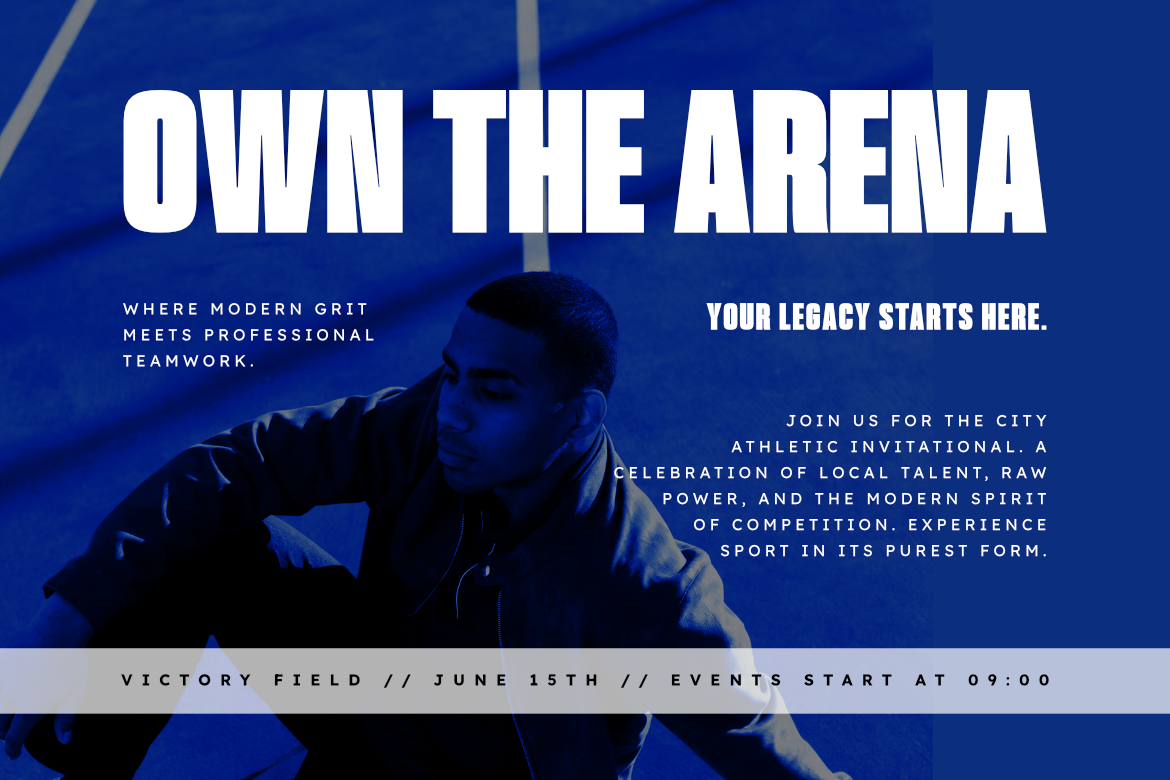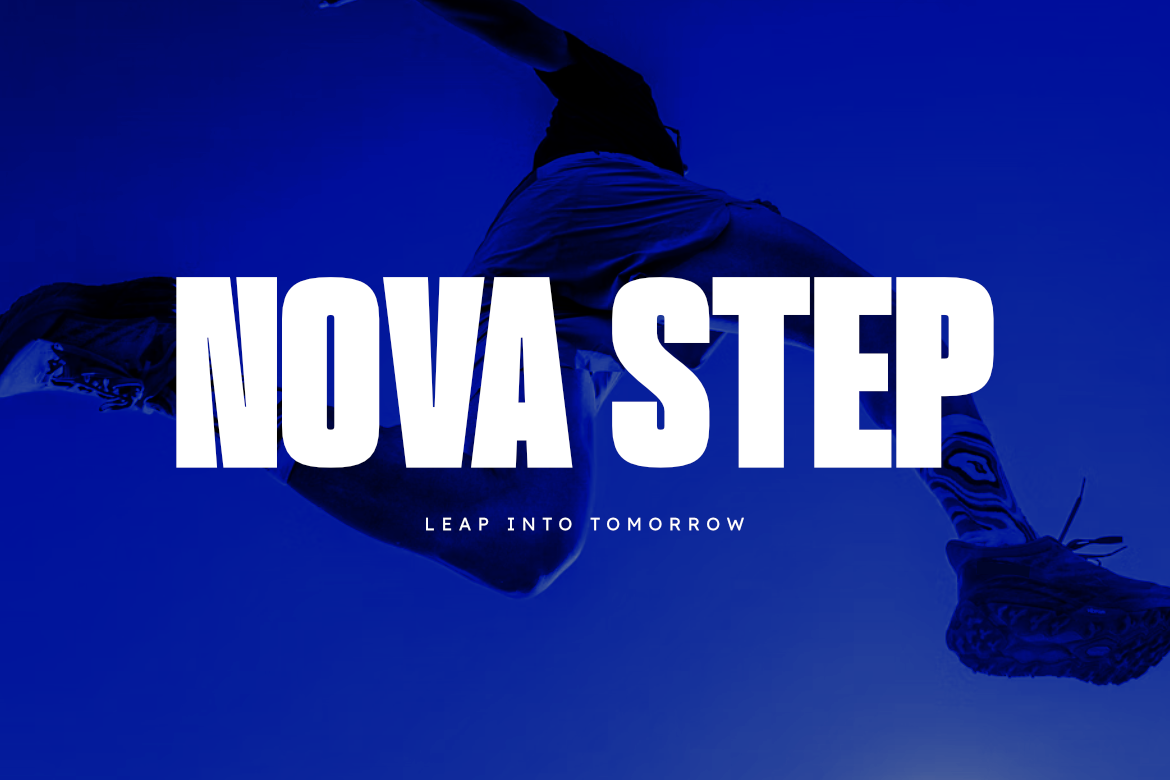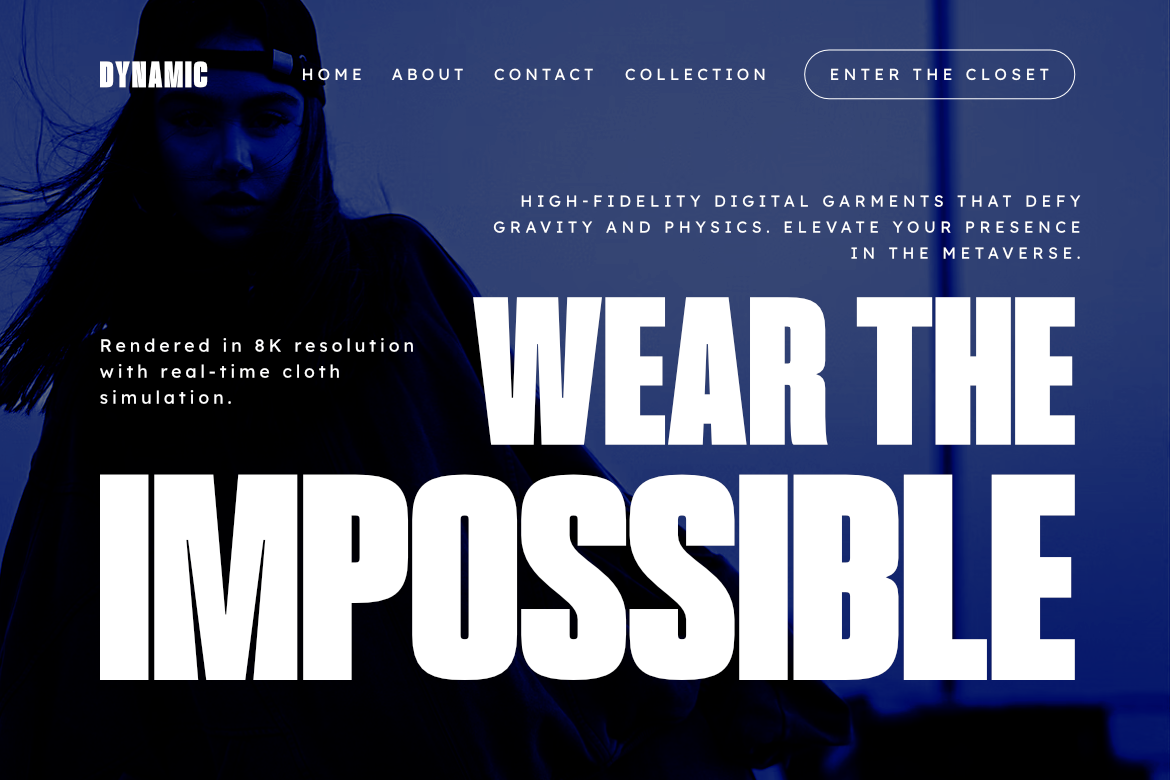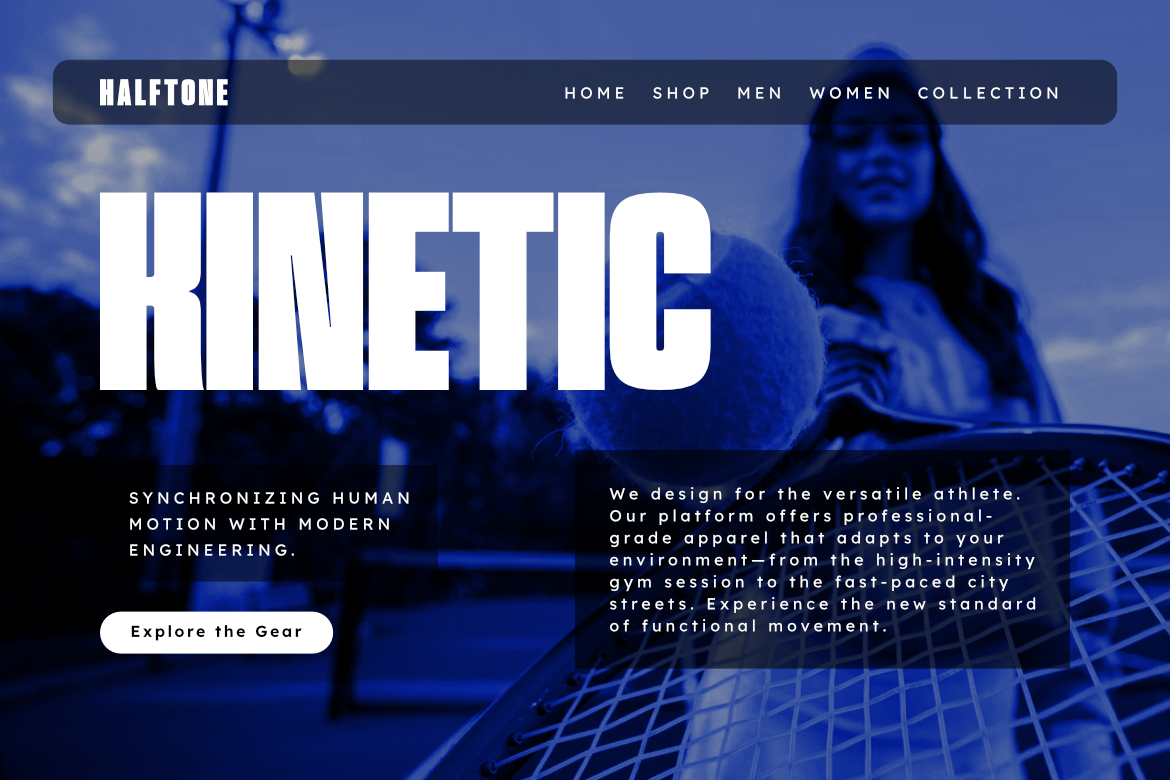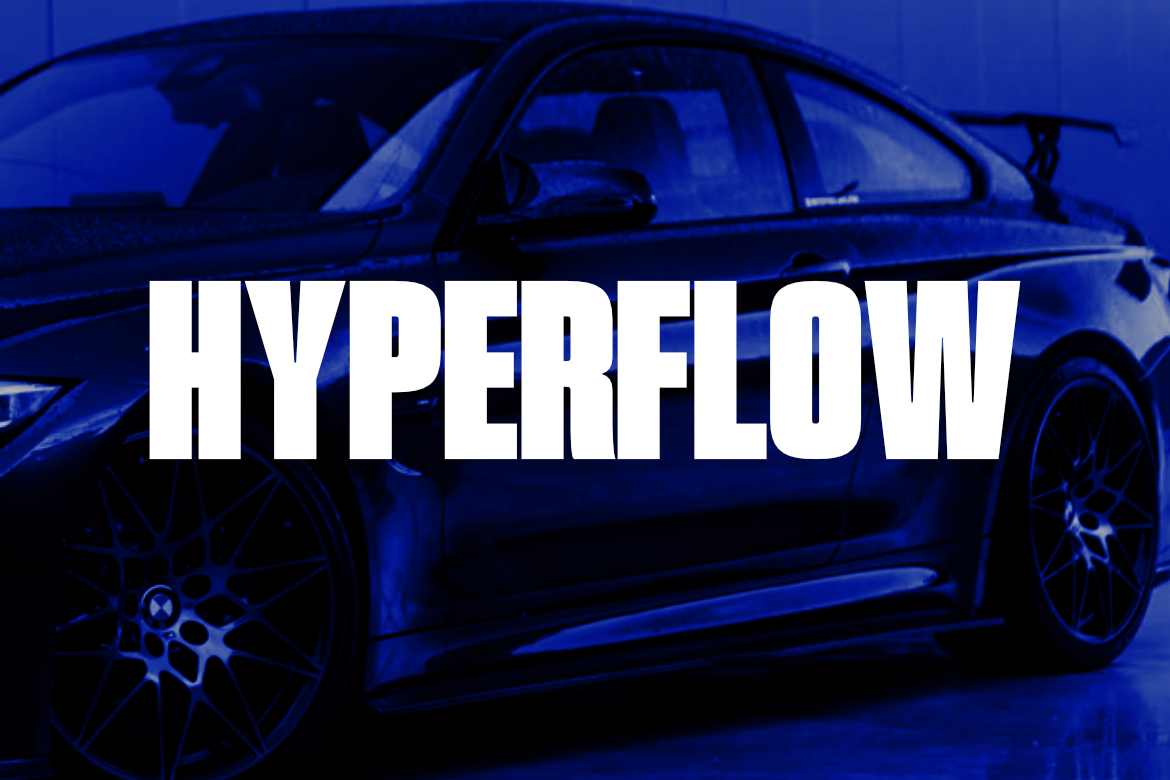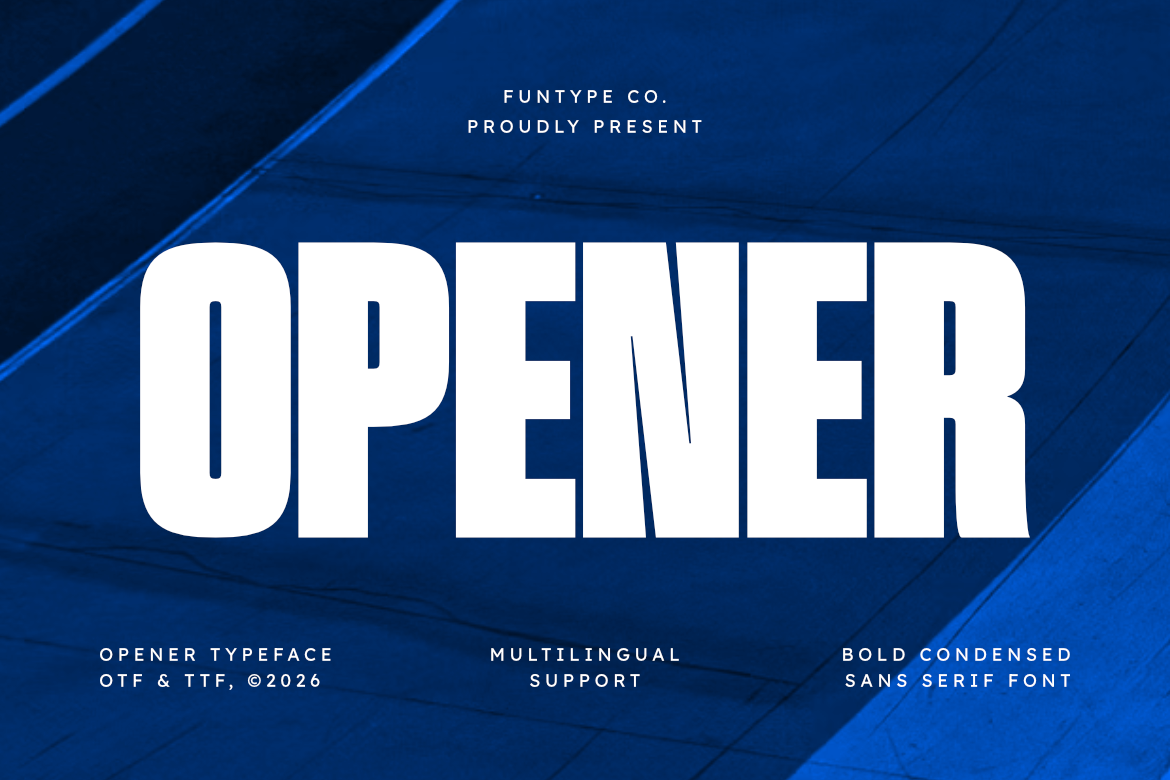
Opener
Opener is a sophisticated and powerful bold condensed sans serif font, thoughtfully designed to capture the essence of maximum visual impact and contemporary storytelling. With its heavy, ultra-compressed structure and clean geometric lines, Opener offers a professional aesthetic that brings a touch of commanding presence to any creative project.
This font is the ideal choice for designers looking to add a professional yet high-impact touch to their work. Whether you are crafting a striking athletic brand identity, a sleek e-sports logo, or bold cinematic layouts, Opener provides a seamless blend of modern edge and competitive power.
- Bold Condensed Design: Optimized for a heavy, space-efficient, and professional look.
- Multilingual Support: Fully ready and packed for diverse global design projects.
- Commanding Presence: Perfect for massive headlines, and large-scale digital displays.
- Professional Aesthetic: High-end finish for modern sports branding, automotive industries, and gym promotional materials.
Best Used For: Sports branding, e-sports identities, racing graphics, cinematic movie posters, high-impact web headers, gym promotion layouts, and heavy corporate packaging.